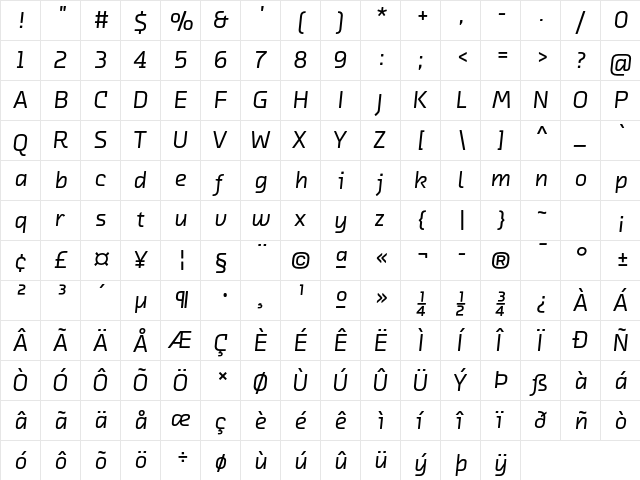
Chambers Sans OT Medium Italic Font Preview
Chambers Sans OT Medium Italic
| Foundry | FSI |
| Designer | Verena Gerlach |
Design Context for Chambers Sans OT Typeface
Chambers Sans OT is a composed and adaptable typeface that performs quietly and consistently across a wide range of design contexts. Its italic angle brings a sense of urgency and motion to the letterforms.
Pro Tip: Use Chambers Sans OT for emphasis, pull quotes, and subheadings where its slanted energy can add rhythm to the layout.